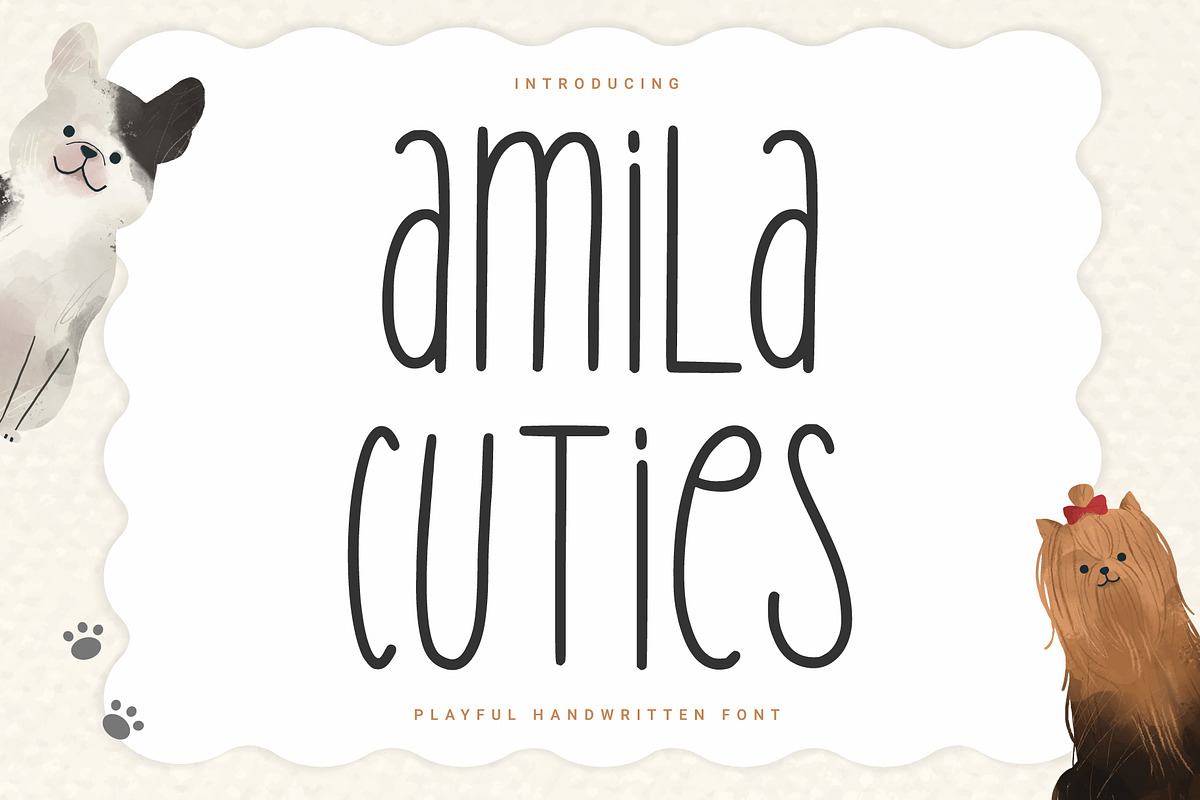
The Amila Cuties Font Free Download is a fun and charming typeface that brings a playful, friendly touch to your designs. With its rounded, soft letterforms and cute appeal, this font is perfect for children's books, party invitations, logos, and social media graphics. Whether you're working on a playful project or creating lighthearted branding, Amila Cuties adds a delightful and warm vibe to any design.
Amila Cuties Font Free Download is ideal for designers who want to create fun, whimsical designs with a friendly touch. Perfect for brands targeting younger audiences or projects that need a cheerful, approachable feel. Download this cute and charming font today and add some cuteness to your creative work!